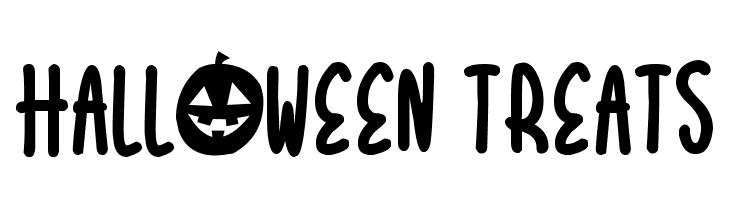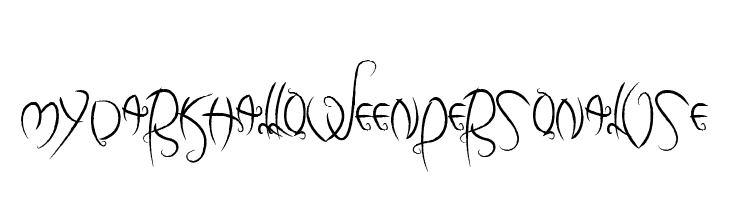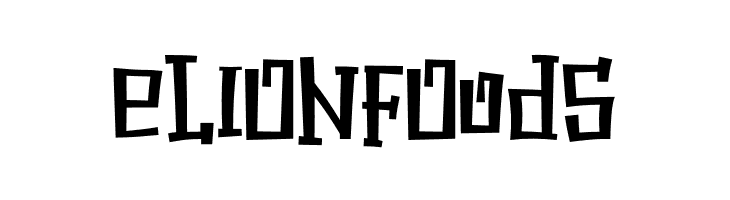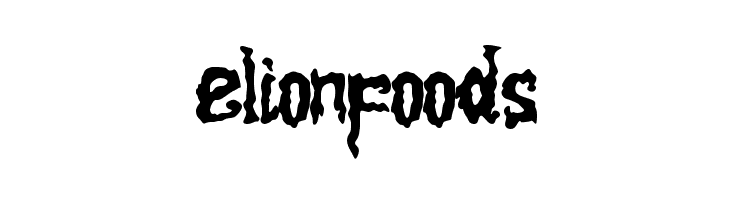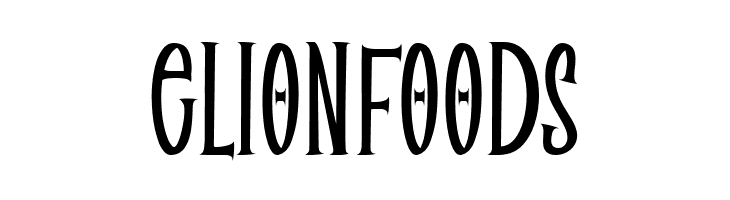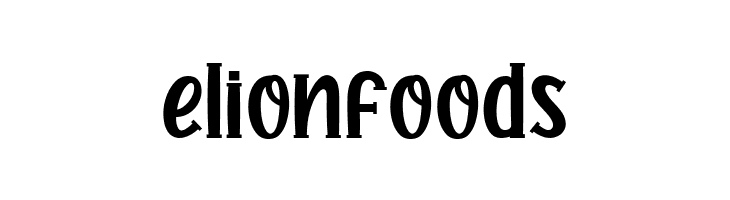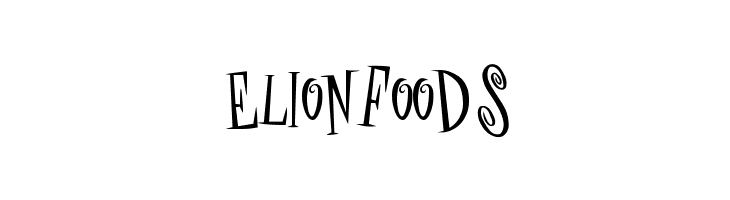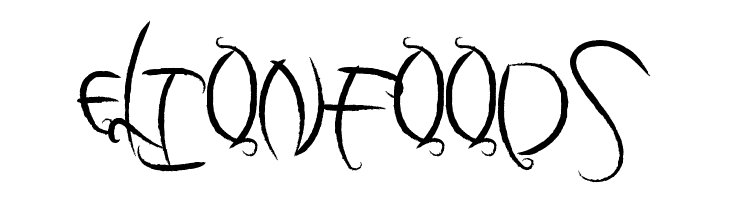
A whimsical, spooky font with playful swirls and bold, animated characters.
A spooky, decorative font with elongated, twisted forms and gothic swirls.
A playful, spooky font with bold, irregular lines and a hand-drawn feel.
A spooky, irregular font with a dripping, eerie aesthetic.
A decorative font with letters encased in wreath-like designs, ideal for festive themes.
A playful, bold handwritten font with a quirky, festive vibe.
Halloween-themed doodle icons in a decorative dingbat style.
A whimsical, spooky font with tall, narrow characters and playful serifs.
A playful, spooky font with a hand-drawn, whimsical style.
A playful, bold font with curvy, hand-drawn letterforms ideal for festive designs.